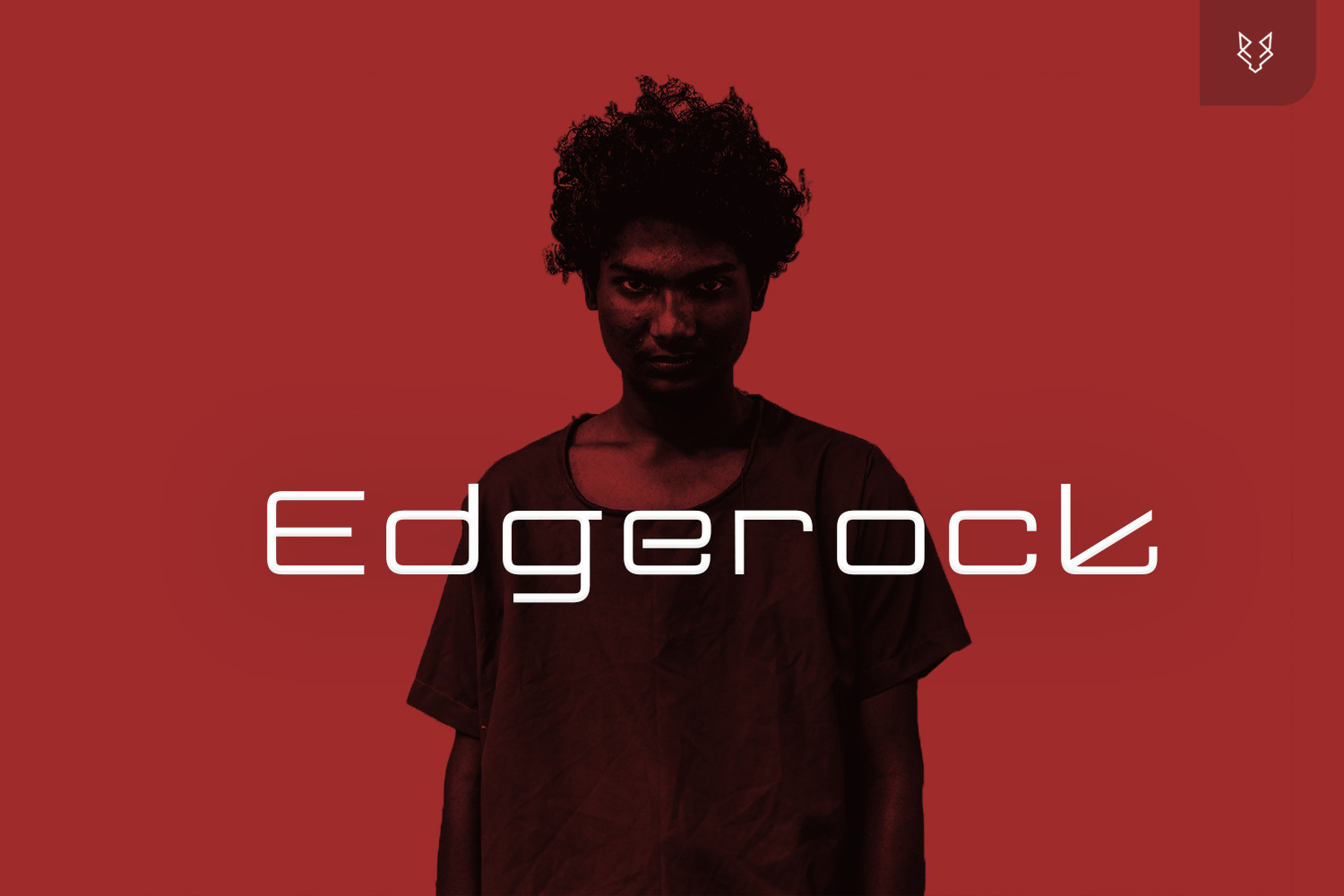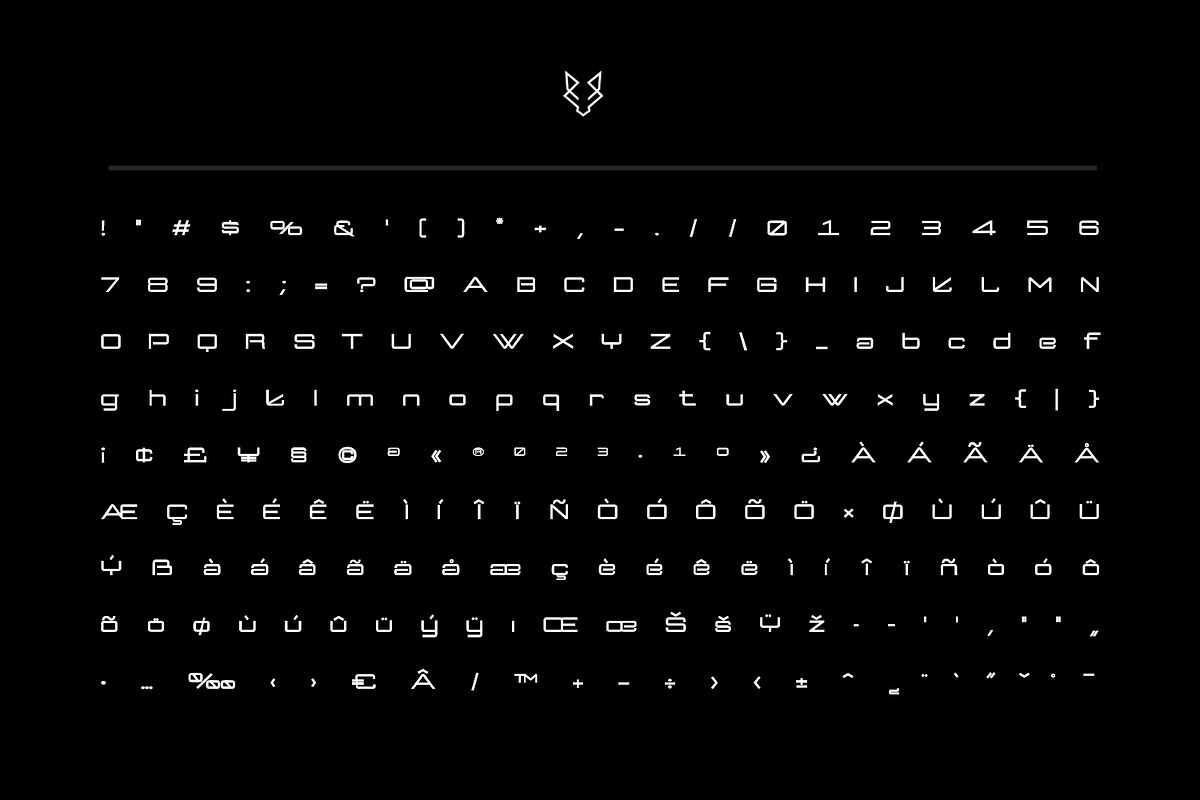
EdgeRock Display Typeface
Introducing EdgeRock Display—a font family exuding elegance and versatility. With its nine meticulously crafted weights, ranging from Light to Bold ( 05 weights ), EdgeRock Display offers unparalleled flexibility for a wide range of design applications. Whether it's branding, headlines, captions, or posters, this typeface makes a bold statement with its controlled letterforms and modern touches.
Designed with meticulous attention to detail, EdgeRock boasts over 200 glyphs, including numerals and extended punctuation, ensuring seamless integration into any design project. Its expert kerning and quality crafting elevate its aesthetic appeal, while its availability in TTF, OTF, and WebFonts formats ensures effortless implementation across various digital and print platforms.
From its clean, minimalist style to its warmth and versatility, EdgeRock embodies sophistication without compromising readability. Elevate your designs with EdgeRock Display—a font that makes a lasting impression, every time.